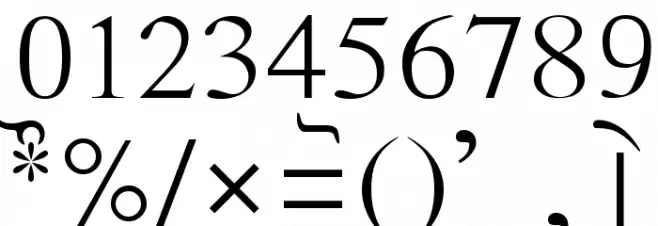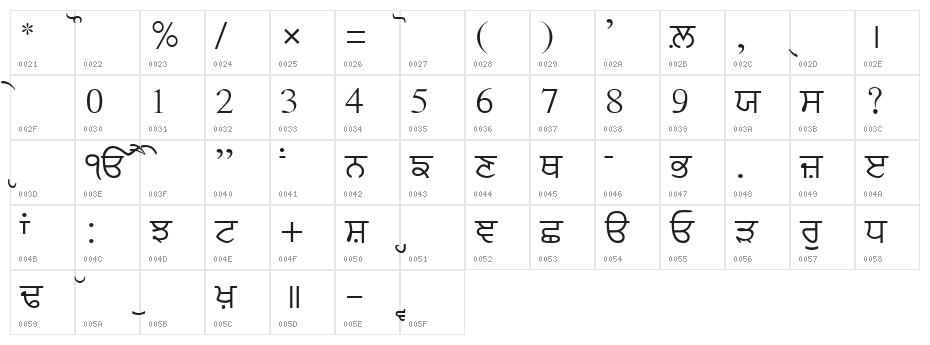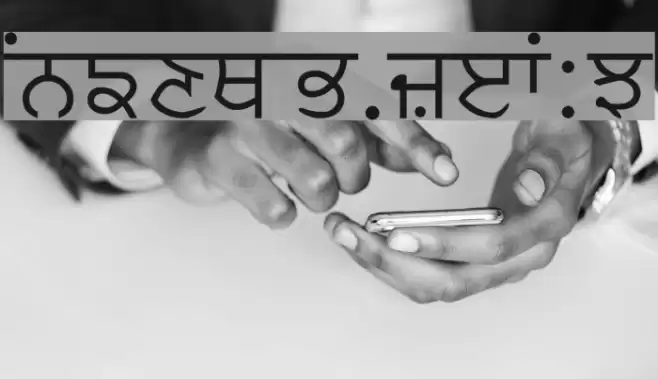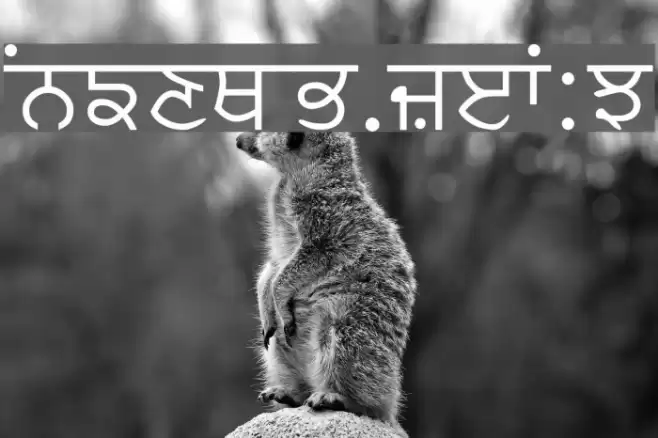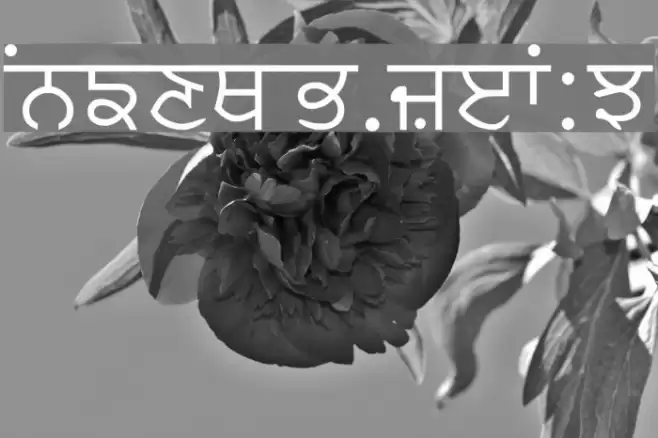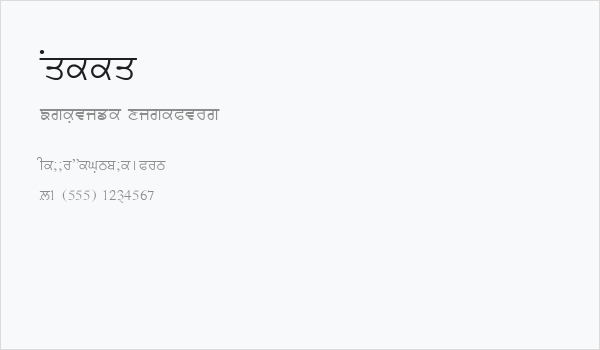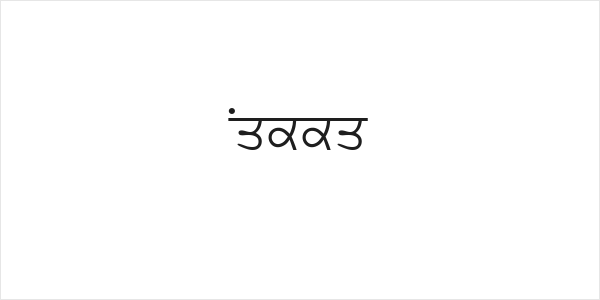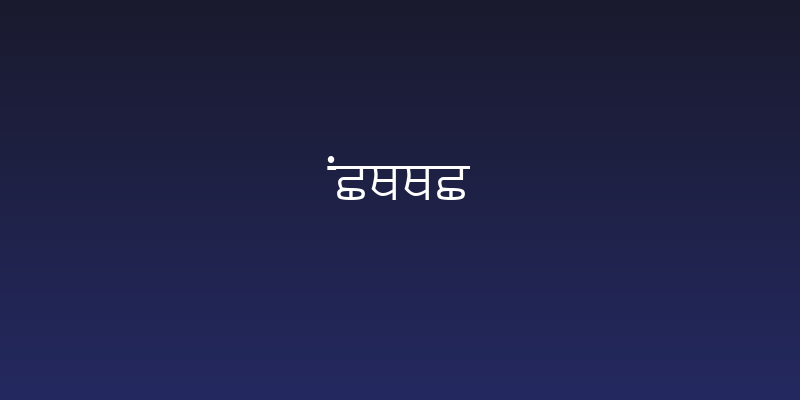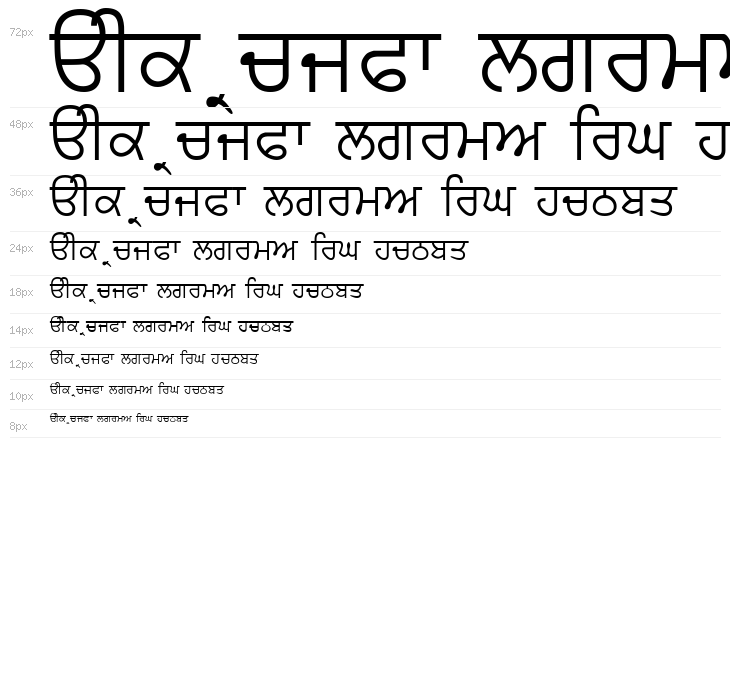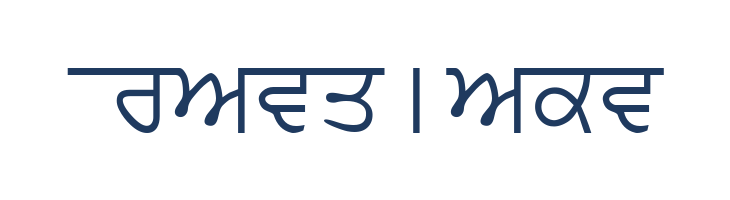
Asees Font
| Caso de uso | Body text, Educational materials, Signage |
| Projetos propostos | Ideal for educational materials, signage, digital content, and print media requiring Gurmukhi script. |